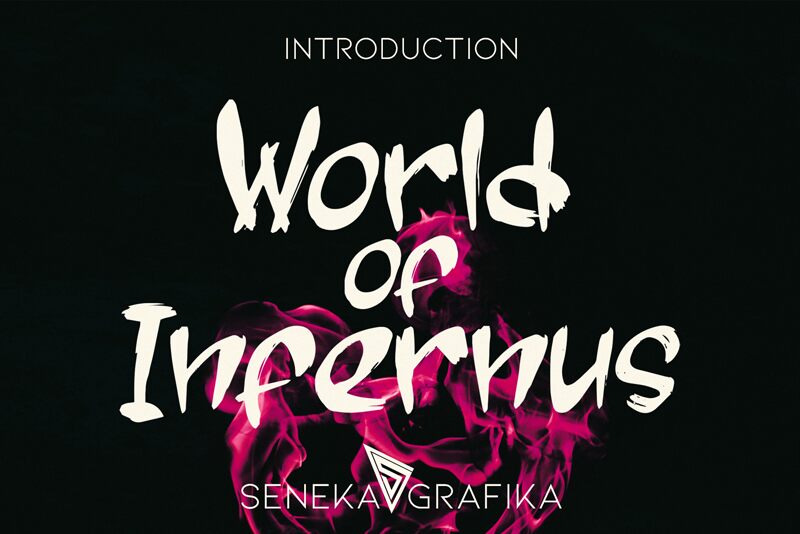
World of Infernus, the fiery and bold brush font designed by Muhammad Helmi, is a perfect choice for projects that demand attention. With its striking strokes and adventurous spirit, this typeface is ideal for branding initiatives such as logos or product packaging designs. Whether used in a brochure or on a website banner, World of Infernus adds personality and flair to any project. This font is also an excellent option for poster designs, book covers or album art where the bold brush strokes can be appreciated at full size. Dare to explore this exciting font and unleash your creativity today!